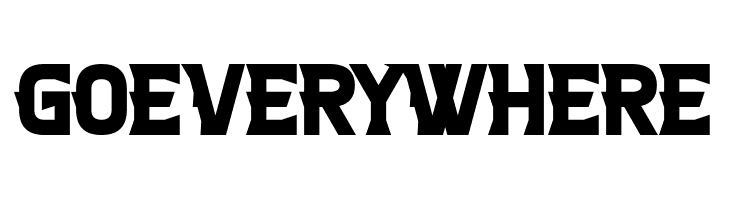
A futuristic, segmented font inspired by digital displays.
A playful, hand-drawn font with a whimsical and energetic style.
A bold, futuristic font with sharp, angular lines and a condensed structure.
A playful and casual handwritten font with fluid, slightly irregular strokes.
A playful, bold font with rounded characters and whimsical star accents.
A playful, hand-drawn style font with bold, rounded characters.
A decorative and geometric font with bold, artistic designs.
A bold, geometric font with clean lines and a modern appearance.
A jagged, eerie font with distressed, twisted characters ideal for horror themes.
A pixelated, retro-style font with rounded edges, ideal for digital-themed designs.
A creepy, scrawled italic font with bold, fluid strokes.
Ornamental spirograph-style display set with circular geometric motifs.
A diverse collection of decorative symbols with intricate patterns and unique designs.
A modern, geometric font with high contrast and bold, artistic strokes.
A bold, italicized, condensed font with a 3D shadow effect, perfect for modern designs.
Hand-drawn caricature font with expressive faces for each character.
A sleek, extra light italic font with a modern and elegant style.
A bold, elegant script font with flowing curves and high contrast.
A playful, informal handwritten font with a casual and friendly vibe.
A playful, handwritten font with a casual and friendly appearance.
A graceful and elegant script font with fluid, interconnected strokes.
A bold, extra-expanded italic font with sharp, angular edges for a modern look.
A playful, hand-drawn font with irregular lines and a casual vibe.
A thin, monospaced font with a minimalist and modern design.